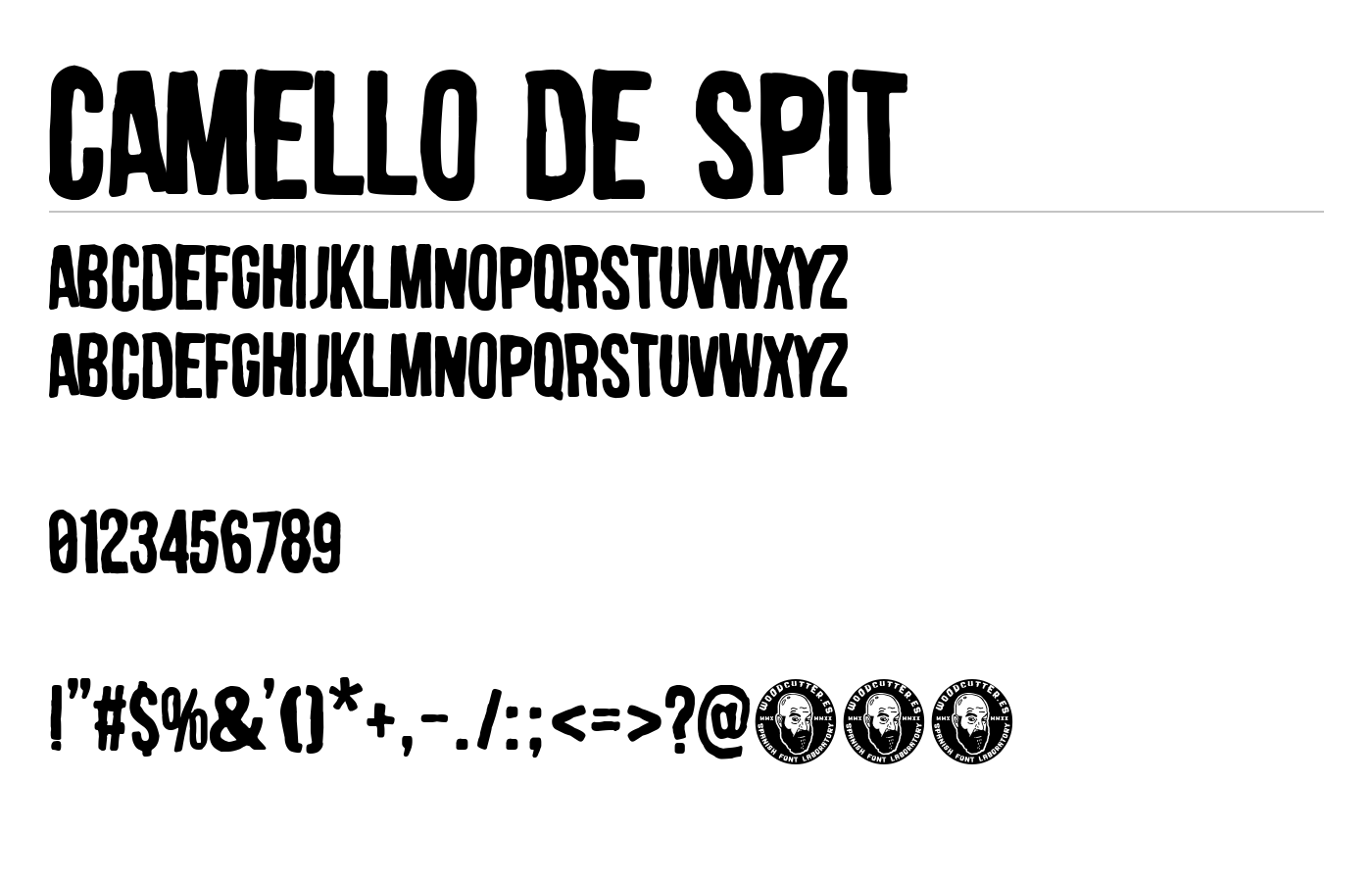
Camello de Spit is a bold, condensed sans serif font with a handmade, slightly irregular style that gives it a playful yet strong character. Its tall uppercase letters and tight spacing make it ideal for eye-catching headlines, posters, and branding that want to convey a fun, casual, and energetic vibe. This font works great in creative, youthful designs that need a distinctive and approachable look.
camello de spit Font
About camello de spit Font
| Font family | camello de spit Font |